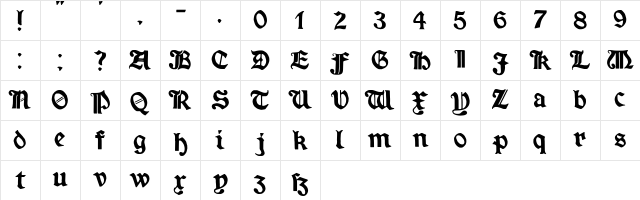
Complete Minim ExtraBold glyph index. Displaying only characters natively supported by Minim ExtraBold font.
Minim is a composed and adaptable typeface that performs quietly and consistently across a wide range of design contexts. Its bold stroke weight gives it real presence on the page.